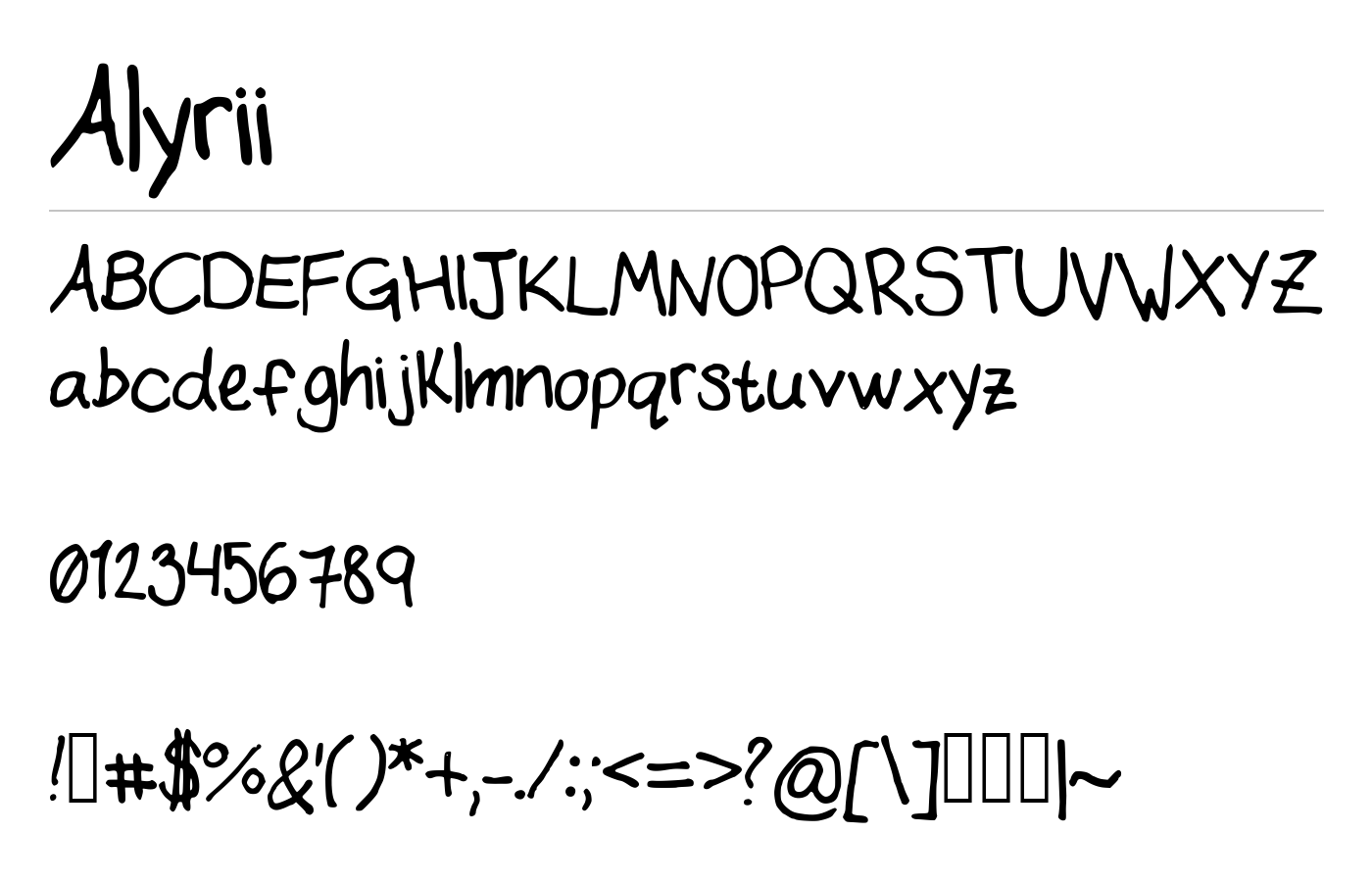
Alyrii is a casual, handwritten sans serif font with a playful and approachable feel, featuring slightly uneven strokes and moderate x-height for good readability. Its irregular character shapes give it an organic, informal personality that works well for creative projects, friendly branding, and personal communications. This font is ideal for invitations, social media graphics, and any design where a warm, human touch is desired.
Alyrii Font
About Alyrii Font